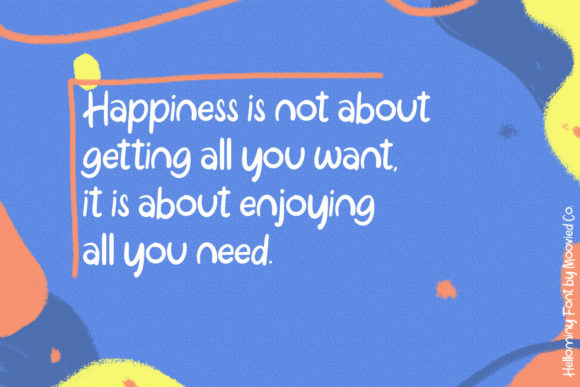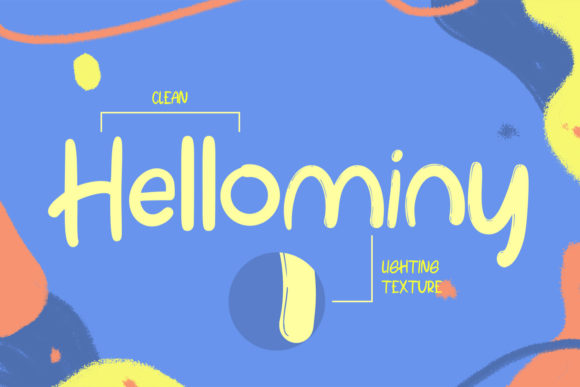
Introduction to Hellominy Font Font
Fonts play a crucial role in design, and the Hellominy Font font is a typeface that brings both character and versatility to any project. Whether you’re working on a branding project, a website, or a print design, the Hellominy Font font offers a unique style that can elevate your work.
Hellominy is a fun script font with a friendly feel.
Use this gorgeous and unique font to bring any DIY project to life .
Key Features of Hellominy Font Font
Why Choose Hellominy Font Font?
The Hellominy Font font is more than just a typeface – it’s a design tool that helps you communicate your message with style and clarity. Its unique character set and versatile design make it suitable for a wide range of applications, from elegant invitations to bold headlines.
With its carefully crafted letterforms and balanced proportions, the Hellominy Font font ensures readability and visual appeal across all mediums.
What makes Hellominy Font font special?
The Hellominy Font font stands out with its unique design, exceptional readability, and versatility across various design applications.